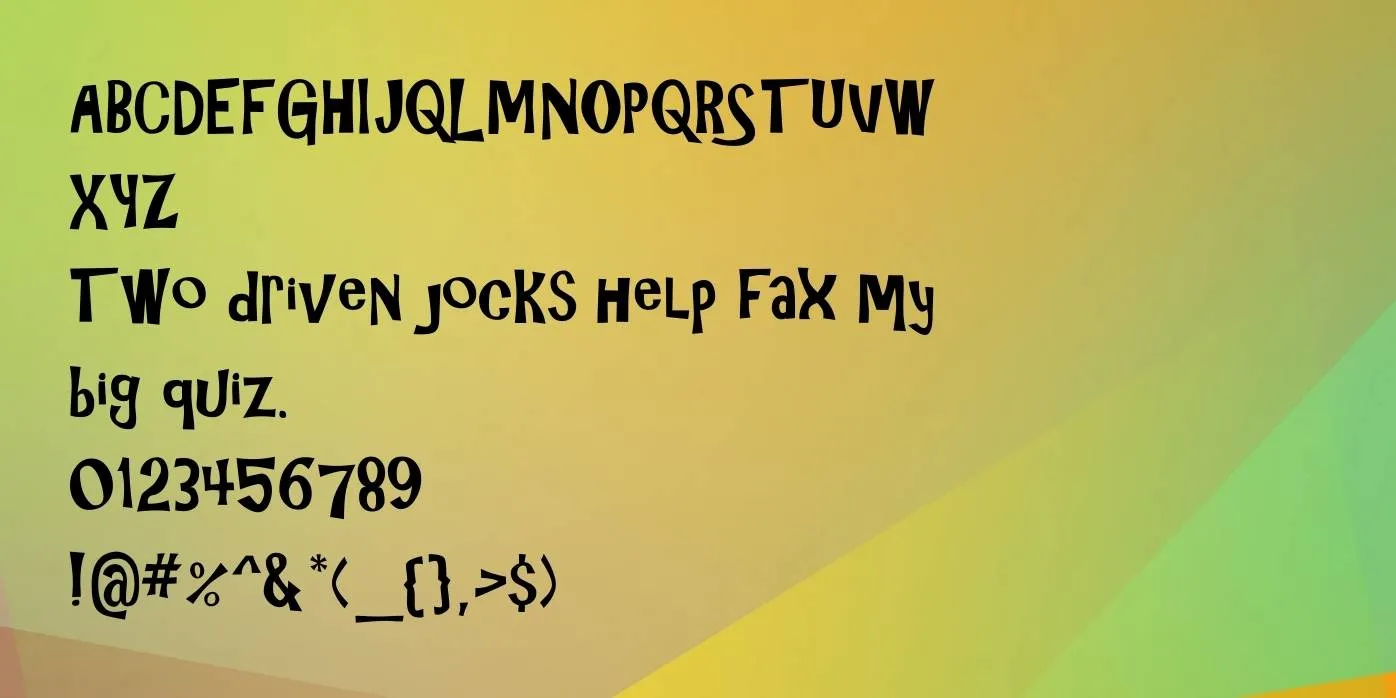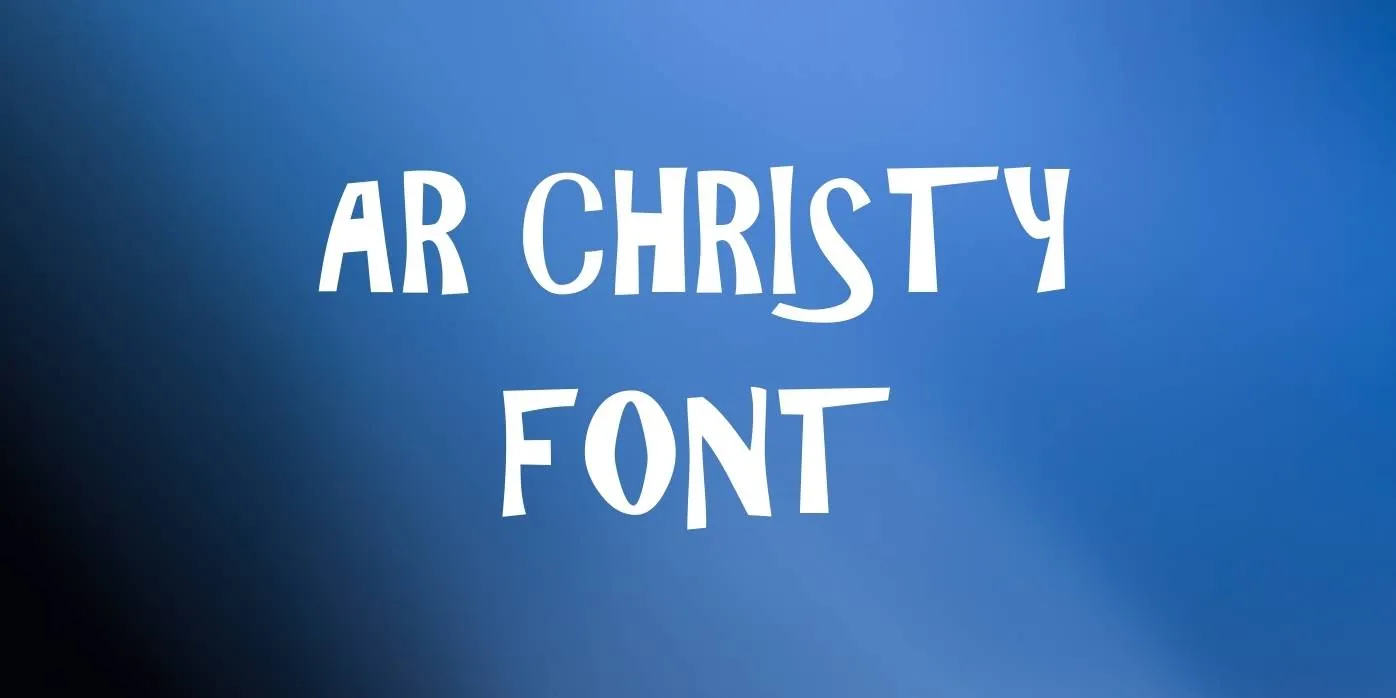
Ar Christy Font
Representing you a very distinctive typeface that is known as Ar Christy Font. It is designed by EnStep Incorporated. The font belongs to a Display typeface family and it is featureful with TTF format. The typeface has Truetype Outlines and is Digitally signed with specific visuals.
It contains Uppercase and Lowercase letters, Numbers and Numerals, Punctuation, Special glyphs, and symbols. It can provide great feature functions with Grobold Font. The characters in this typeface are created randomly, which is why this font looks so dissimilar. Some characters in this font are to the above side while some are below, on the other hand, some words are big while some words are small.